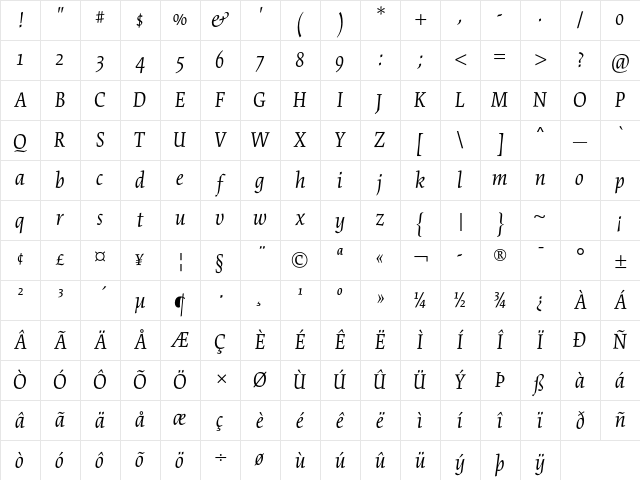
Cartier Book Std Italic
Complete Cartier Book Std Italic glyph index. Displaying only characters natively supported by Cartier Book Std Italic font.
Design Context for Cartier Book Std
Cartier Book Std is a composed and adaptable typeface that performs quietly and consistently across a wide range of design contexts. The slanted form adds forward momentum and visual energy.
Pro Tip: Use Cartier Book Std for emphasis, pull quotes, and subheadings where its slanted energy can add rhythm to the layout.